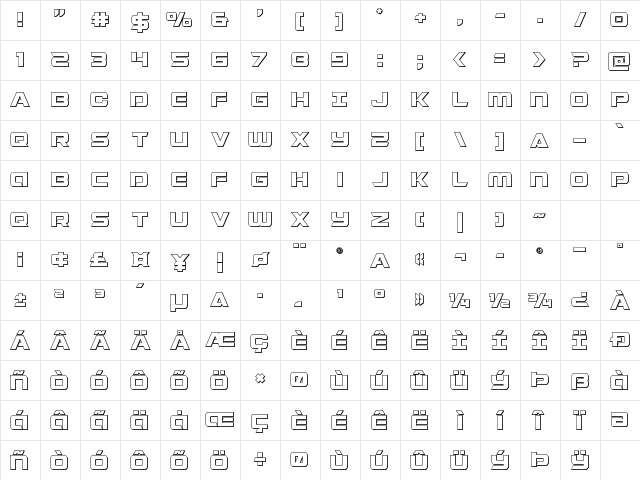
Complete Starduster Outline glyph index. Displaying only characters natively supported by Starduster Outline font.
Starduster Outline is built around its visual character rather than neutral utility - its distinctive forms are designed to make an impression at display sizes.
Font Pairing: Pair with a clean neutral sans-serif for body copy to let Starduster Outline's character lead without overwhelming the composition.
Pro Tip: Use Starduster Outline exclusively at display sizes - it was designed to be seen, not read at length. Let a neutral companion handle body copy.